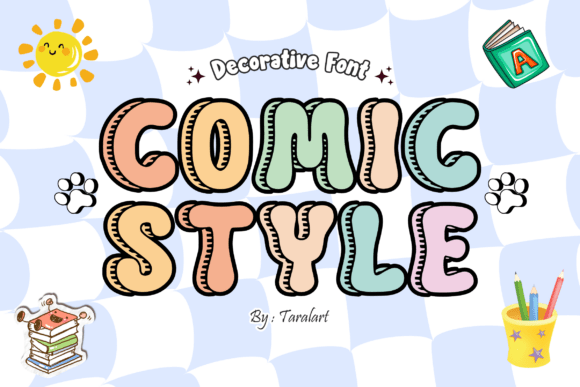
Introducing Comicstyle Regular Font: The Ultimate Choice for Playful and Creative Designs
Are you looking for a font that can add a touch of playfulness and energy to your designs? Look no further than Comicstyle Regular Font, a delightful decorative font that is sure to capture the attention of your audience. Designed to evoke the hand-drawn essence of classic cartoons and school-age storytelling, Comicstyle Regular Font is the perfect choice for a wide range of creative projects.
What Makes Comicstyle Regular Font So Unique?
Comicstyle Regular Font is a one-of-a-kind font that boasts a thick, bubbly, and slightly irregular letterform. Its soft, rounded structure enhances its childlike charm, making it perfect for designs that require a playful and youthful touch. What truly sets it apart, however, is the stitched inner detailing. Each character features short, arching lines that mimic sewing or texture marks, adding depth and personality to the font.
The Key Features of Comicstyle Regular Font
- Thick, bubbly, and slightly irregular letterform: The font’s unique letterform is designed to evoke the hand-drawn essence of classic cartoons and school-age storytelling.
- Soft, rounded structure: The font’s soft, rounded structure enhances its childlike charm and makes it perfect for designs that require a playful and youthful touch.
- Stitched inner detailing: The font’s stitched inner detailing adds depth and personality to each character, making it truly unique.
- Bold black outlines: The font’s bold black outlines give it a comic-book flair and make it perfect for designs that require a bold and eye-catching look.
- Optional pastel fills: The font’s optional pastel fills create a colorful, friendly look and make it perfect for designs that require a soft and soothing touch.
The Perfect Use Cases for Comicstyle Regular Font
Comicstyle Regular Font is perfect for a wide range of creative projects, including:
- Back-to-school themes: The font’s playful and youthful design makes it perfect for back-to-school themes, including posters, flyers, and educational materials.
- Children’s books: The font’s childlike charm and playful design make it perfect for children’s books, including picture books, early readers, and young adult fiction.
- Classroom posters: The font’s bold and eye-catching design makes it perfect for classroom posters, including motivational posters, educational posters, and decorative posters.
- Playful branding: The font’s playful and creative design makes it perfect for playful branding, including logos, business cards, and letterheads.
- Educational apps: The font’s childlike charm and playful design make it perfect for educational apps, including learning games, interactive stories, and educational software.
- Event flyers: The font’s bold and eye-catching design makes it perfect for event flyers, including concert flyers, festival flyers, and party flyers.
Why Choose Comicstyle Regular Font?
There are many reasons why you should choose Comicstyle Regular Font for your next creative project. Here are just a few:
- Unique and creative design: The font’s unique and creative design makes it perfect for designs that require a playful and youthful touch.
- Highly versatile: The font is highly versatile and can be used for a wide range of creative projects, from back-to-school themes to playful branding.
- Easy to read: The font is easy to read, even at small sizes, making it perfect for designs that require a clear and legible font.
- Supports multiple languages: The font supports multiple languages, making it perfect for designs that require a font that can be used across different languages and cultures.
In conclusion, Comicstyle Regular Font is a delightful decorative font that is sure to capture the attention of your audience. Its unique and creative design, highly versatile, easy to read, and supports multiple languages make it the perfect choice for a wide range of creative projects. Whether you’re looking for a font for back-to-school themes, children’s books, classroom posters, playful branding, educational apps, or event flyers, Comicstyle Regular Font is the perfect choice.